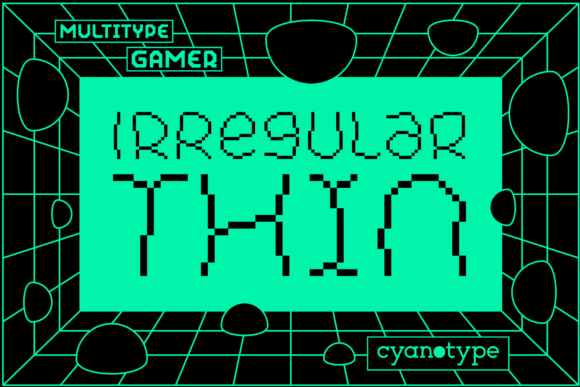
Behold, the Gamer Irregular Thin Font—the ultimate game-changer in the realm of display fonts. Prepare yourself for an eccentric typographic journey where pixels dance and irregular shapes reign supreme. This masterpiece from Cyanotype is a testament to creativity, offering a refreshing departure from the ordinary.
With Gamer Irregular Thin, you have the power to infuse your designs with an edgy and captivating aura. From computer logos that scream innovation to merchandise that exudes a cutting-edge vibe, this font is your secret weapon. As a PUA-encoded font, it grants you effortless access to a treasure trove of glyphs and swashes, empowering you to unleash your imagination without limits.
Imagine crafting a computer logo that pulsates with energy and leaves a lasting impression. The bold, pixelated characters of Gamer Irregular Thin command attention, conveying a sense of dynamism and innovation that resonates with the modern gamer. Your logo will stand out in the digital arena, attracting players like moths to a flame.
Take your merchandise designs to the next level with Gamer Irregular Thin. Create t-shirts, hoodies, and accessories that capture the essence of gaming culture. The font's unique shapes and distorted aesthetic will add an instant touch of cool, making your products irresistible to tech-savvy consumers.
But Gamer Irregular Thin is not just confined to the digital realm. Unleash its power in print media as well. Design posters, flyers, and brochures that demand attention. The font's pixelated glory will break through the clutter, ensuring your messages reach their intended audience with maximum impact.
With Gamer Irregular Thin, you possess a font that transcends boundaries. It's a versatile tool that seamlessly blends the worlds of gaming, technology, and design. Its pixelated charm knows no limits, adapting effortlessly to various platforms and mediums.
Don't settle for ordinary fonts that fade into the background. Embrace the extraordinary with Gamer Irregular Thin. Let its unconventional shapes and distorted beauty elevate your designs to new heights. Join the ranks of creative pioneers who understand the power of visual impact.